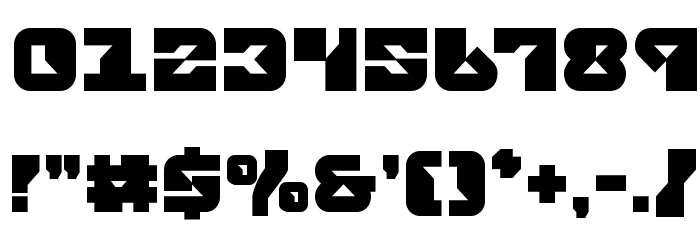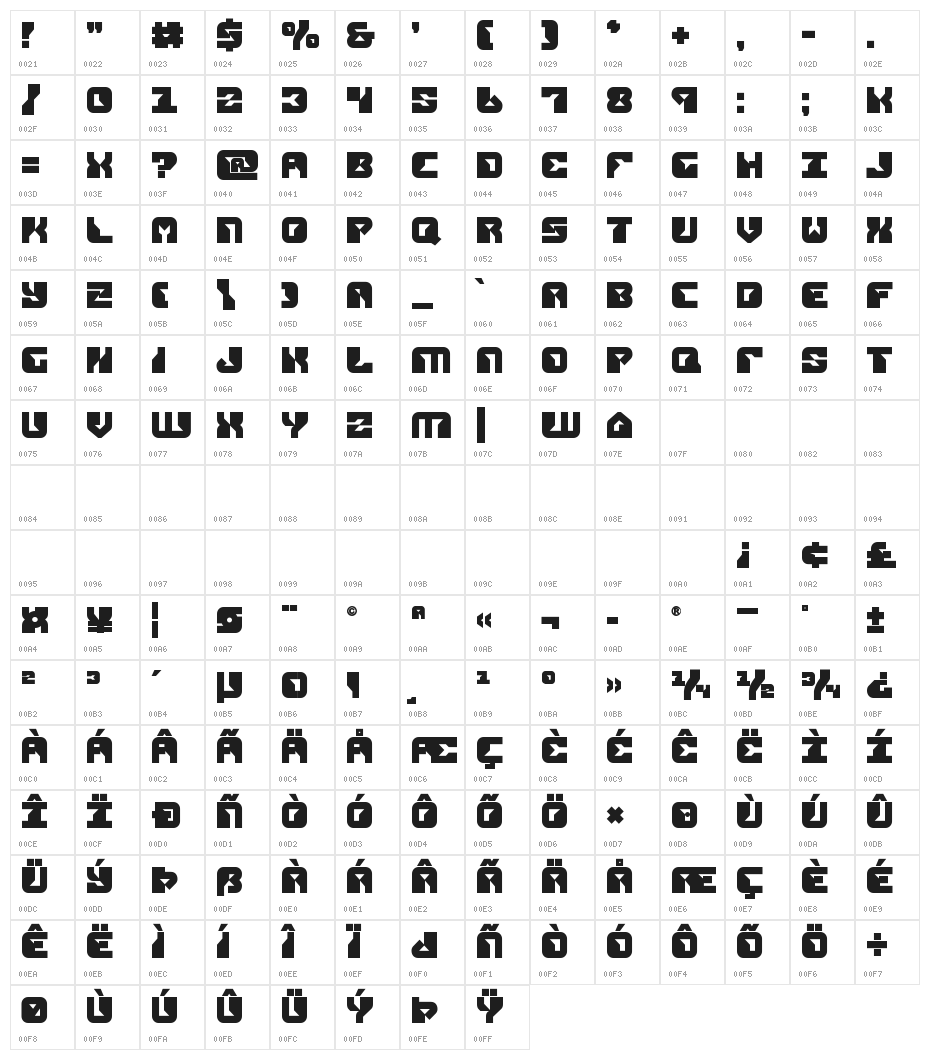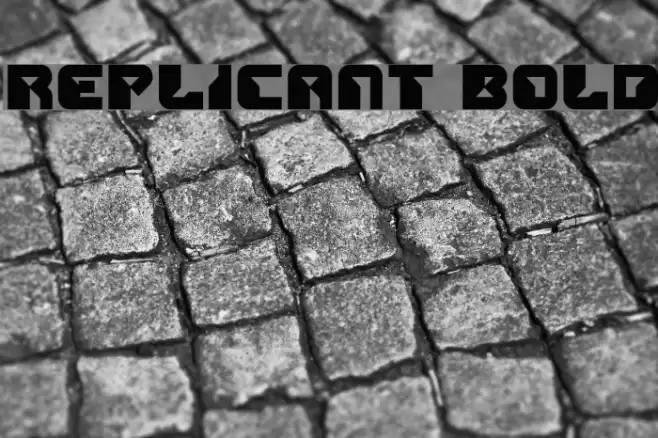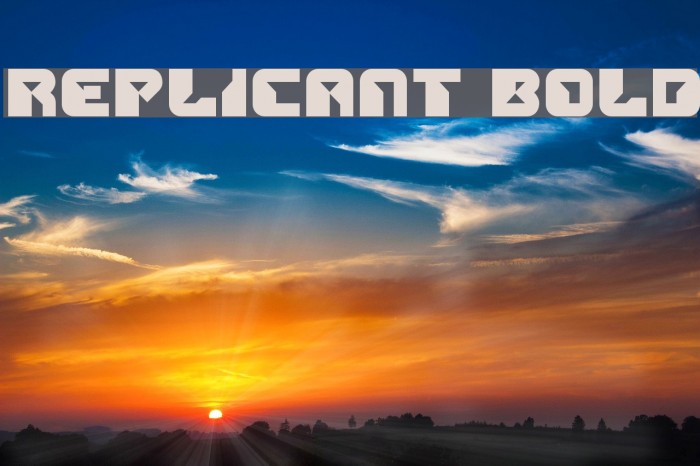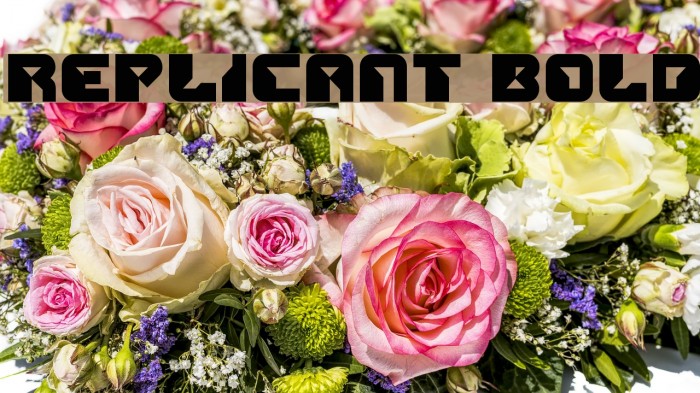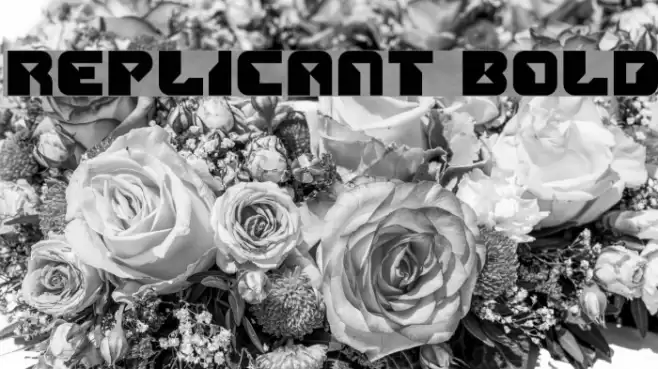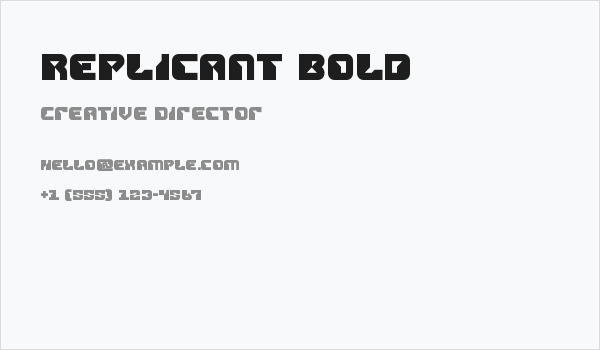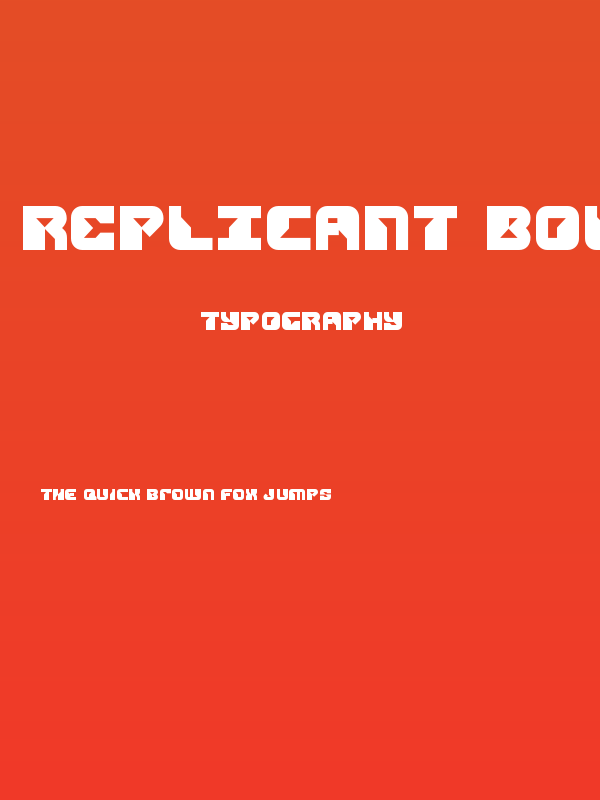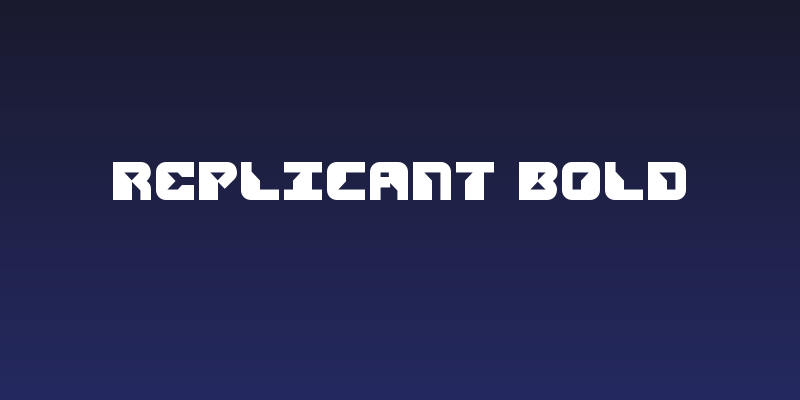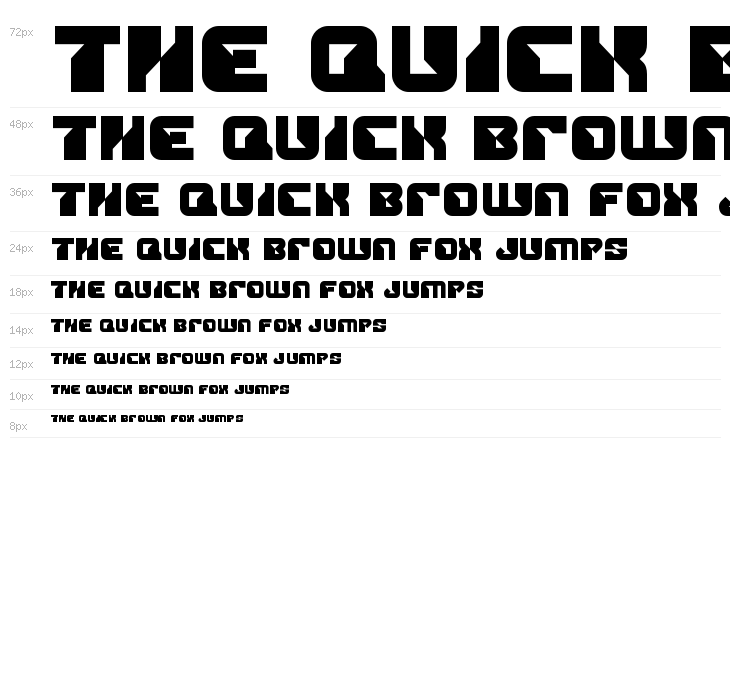
Replicant Bold Font
Replicant Bold Description
This font features a bold and futuristic design with geometric shapes and sharp angles. The characters are blocky and robust, giving a strong and impactful appearance. The uppercase and lowercase letters maintain a consistent style, with a uniform thickness that emphasizes its modern aesthetic. The numbers and special characters follow the same design principles, ensuring a cohesive look across all glyphs. This font is ideal for projects that require a bold statement and a contemporary feel.
| Proposed Projects | Ideal for sci-fi themed designs, video game titles, tech branding, and modern posters. |